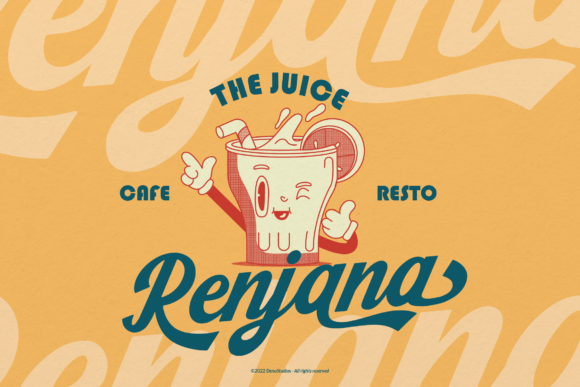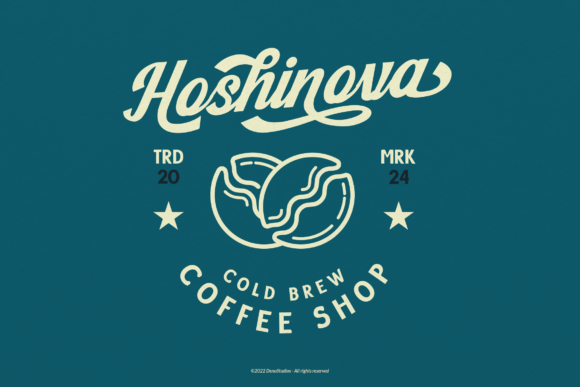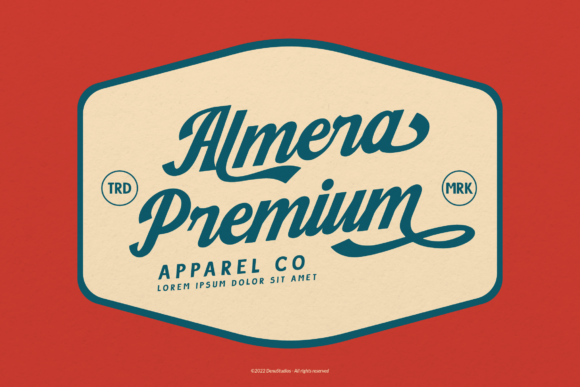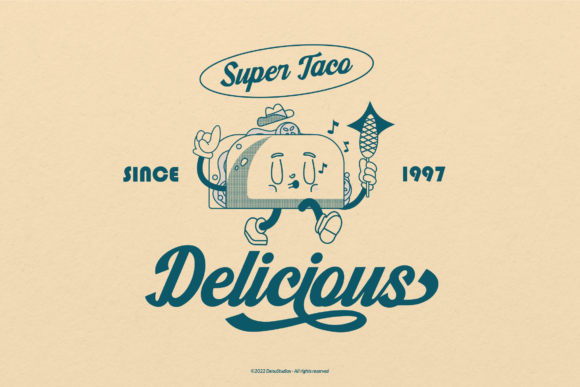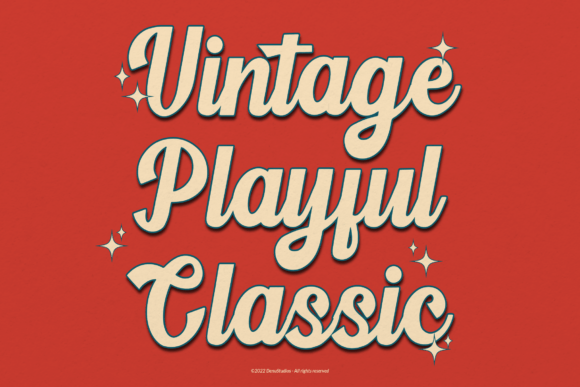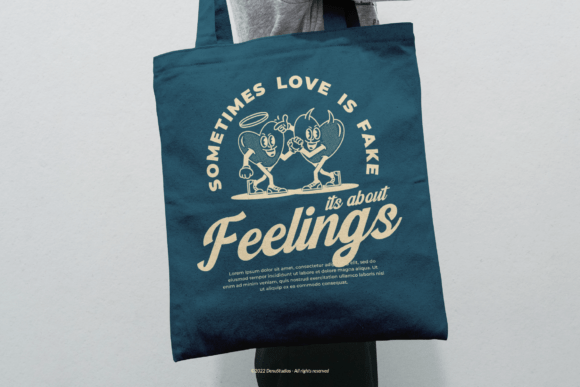
Introduction to Naftaley Maryland Font
Naftaley Maryland is a striking retro script font with bold, flowing curves and a nostalgic charm.
Inspired by vintage signage and lettering, this font is perfect for branding, packaging, posters, and any project that needs a touch of retro flair With stylish alternates and ligatures, it adds personality and dynamism to your typography.
Key Features of Naftaley Maryland Font